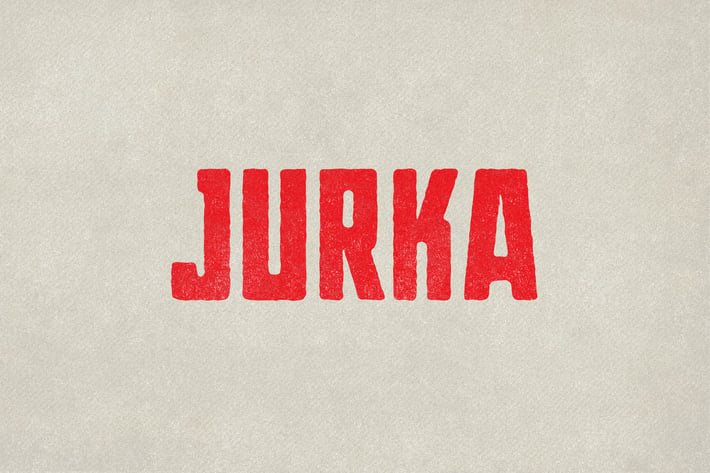
Jurka Typeface
Jurka Typeface is a 2 style font family.
Jurka is an sans-serif robust font inspired by 50's poser art. It has 26 letters and 30 glyps. Perfect for vintage poster / flyer designs, headers, small and block text. It contains only uppercase alphabet with numbers and symbols.
Jurka - Regular
Jurka - Rough
Jurka is an sans-serif robust font inspired by 50's poser art. It has 26 letters and 30 glyps. Perfect for vintage poster / flyer designs, headers, small and block text. It contains only uppercase alphabet with numbers and symbols.
Jurka - Regular
Jurka - Rough